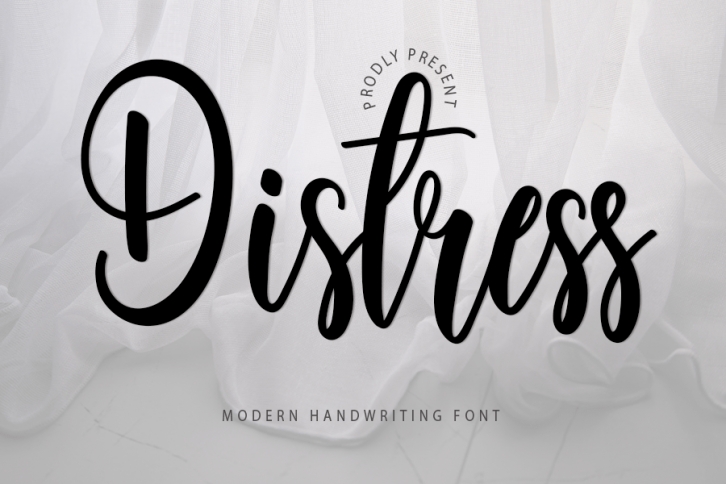
Distress is a cool, simple, and playful handwritten font. Incredibly versatile, this font fits a wide pool of designs, elevating them to the highest levels. Add this font to your favorite creative ideas and notice how it makes them come alive